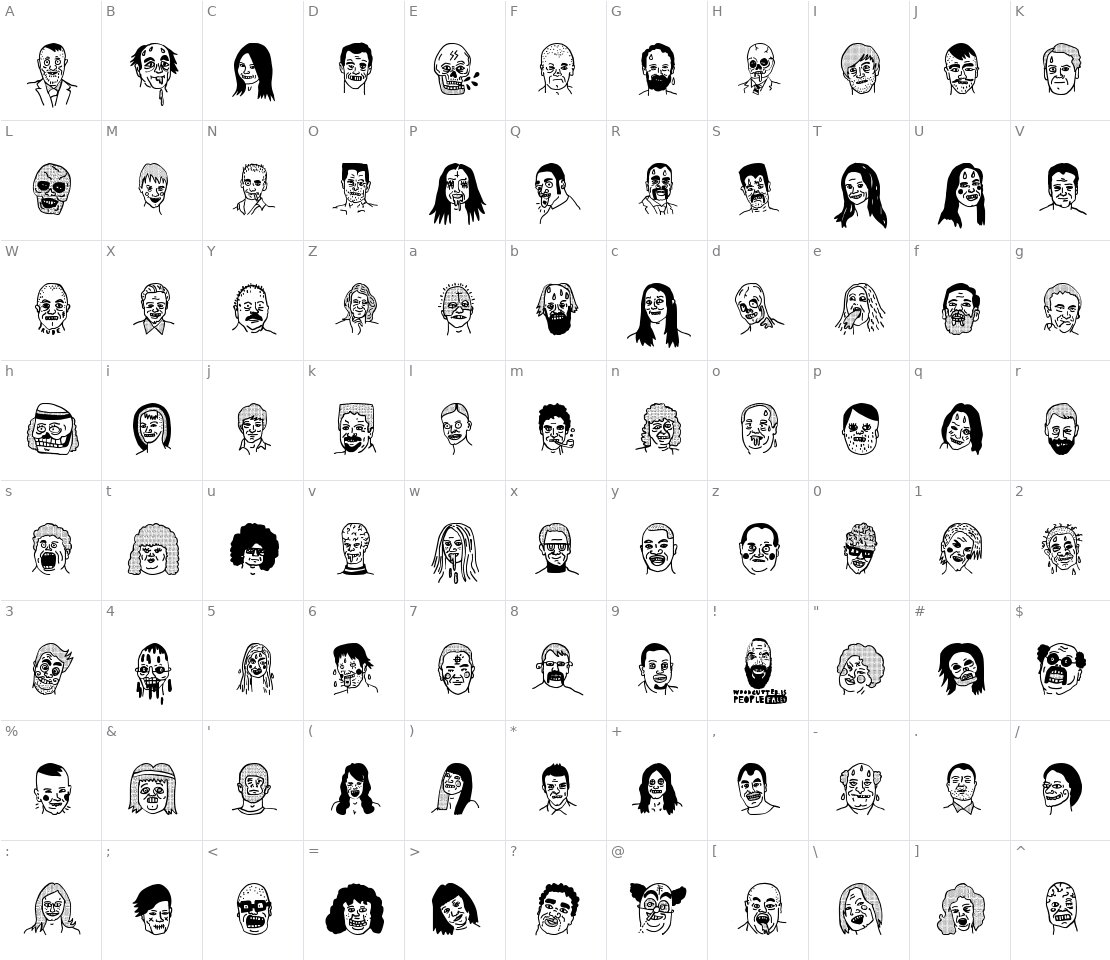
Woodcutter People Faces
Woodcutter People Faces is a dingbat font from Woodcutter filled with hand-drawn cartoon faces, each with its own quirky expression and personality. The black-and-white illustrations have a loose, sketchy quality that feels genuinely handmade rather than digitally polished. Useful as spot illustrations, icons, or decorative elements in playful editorial layouts, zines, and children's projects.